Fascism, football and Helvetica feature on a journey through Italy's visual landscape
As an Italian, the earliest branding I can remember is the mascot insignia for Italy's 1990 World Cup. Ciao was the name of the figure who was used on some versions of the red-white-and green logo, an anthropomorphic player with a football-head that fascinated my curious young mind.
The classic version of the 1990 logo features in L'Italia è il Paese che Amo (Italy is the Country I Love), a new personal project by Giacomo Felace. One of our favourite Italian designers, Giacomo digitally explores the conflicting visual landscape of signs, logos and posters that surrounds his fellow citizens. It's a work designed to be 'anti-design' with its lively colour palette, messy messaging, and liberal use of the Helvetica typeface.
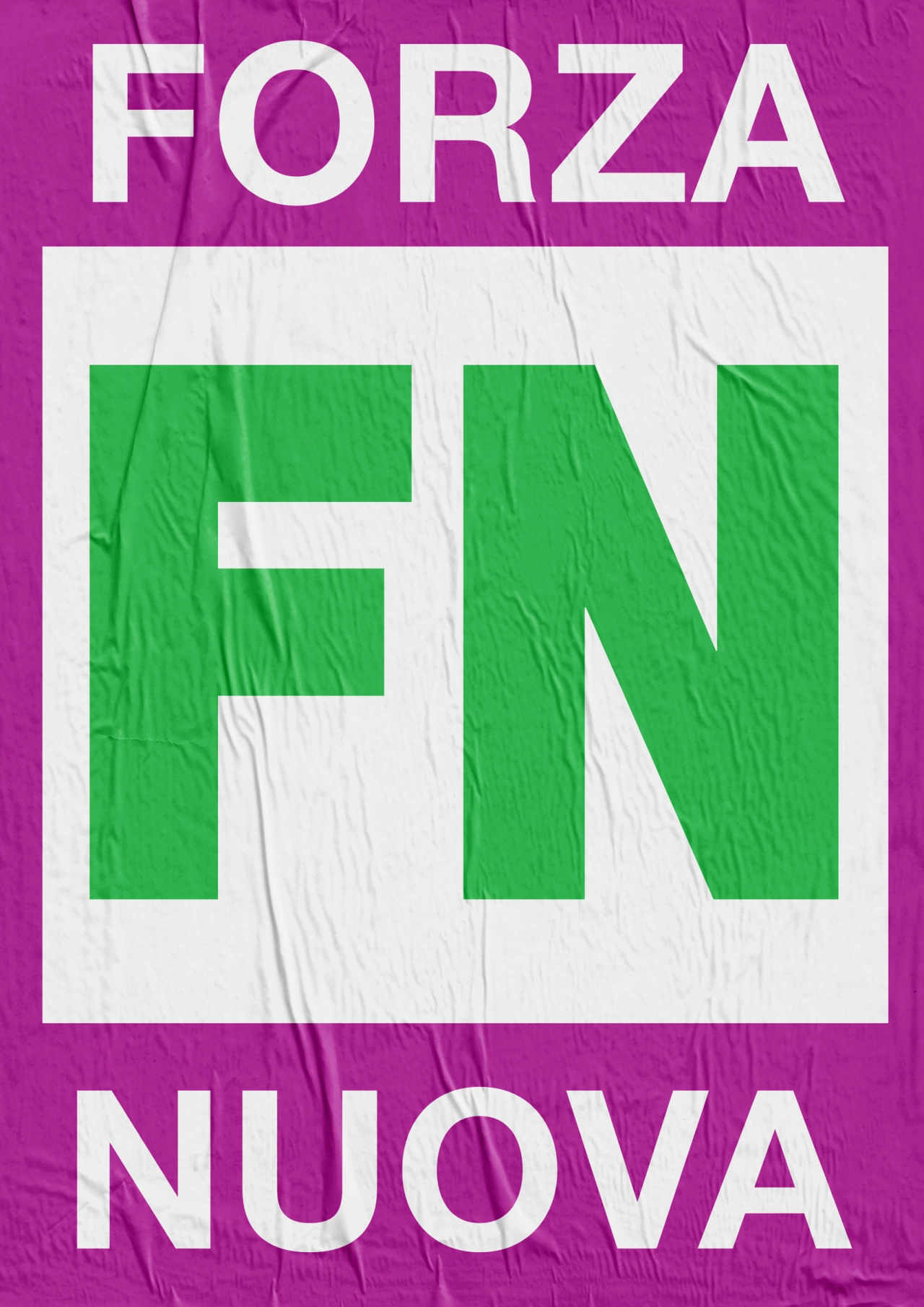
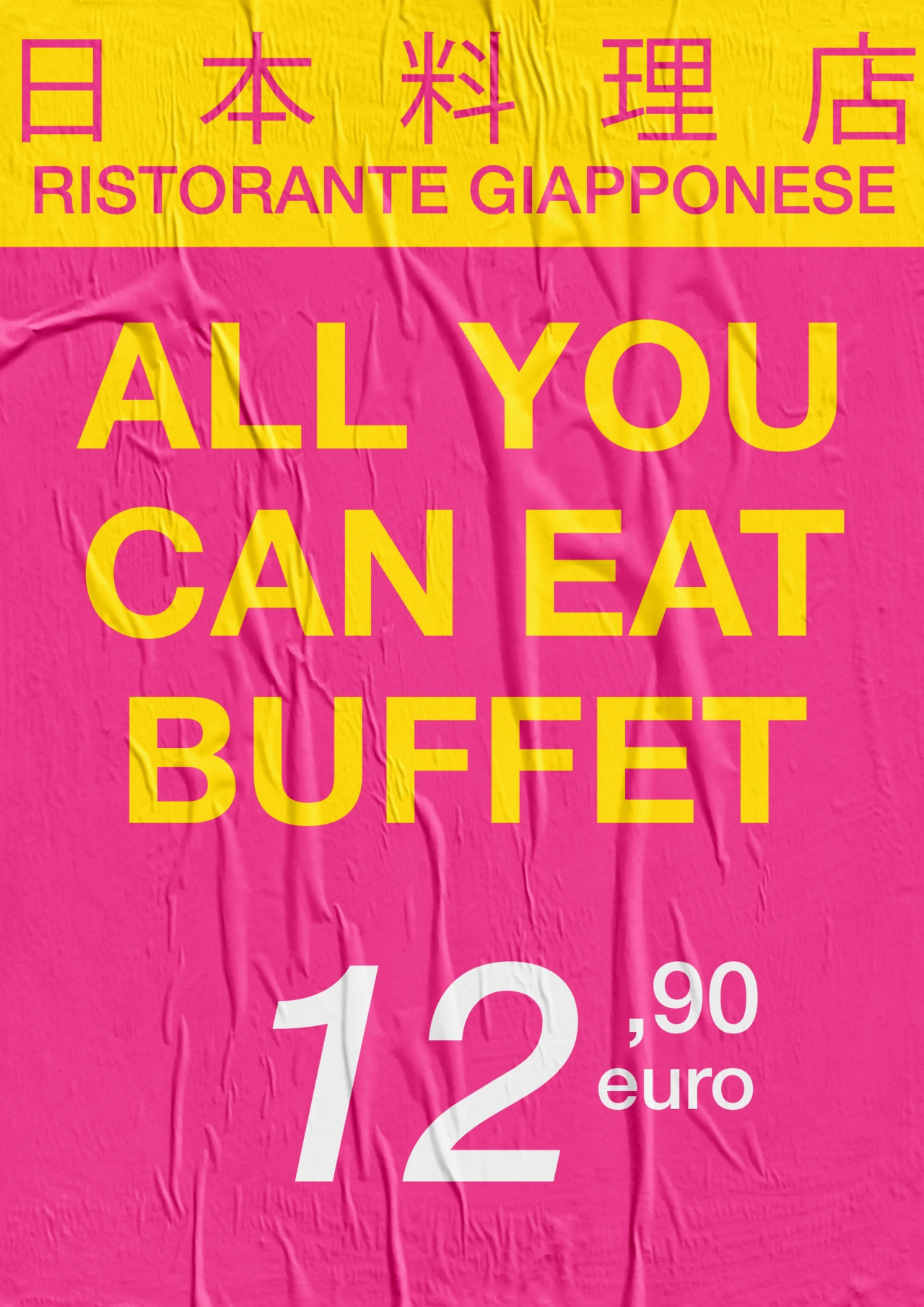
Sampled by Giacomo for the piece, one will find Chinese restaurant signs and McDonald's work ads. Somewhat provocatively, there's also the logo for Forza Nuova (FN), an Italian neo-fascist and nationalist far-right political party.
"Their original logo and banners are very recognisable by their colours (red and black) and bold typography," Giacomo explains. "Particular controversy in the recent past has sparked strongly homophobic and racist ideology and statements in Italy, so I played with their colour palette to give a green accent to the two main letters and a more 'candy' look to the surrounding area."
"I also used part of the 1990 World Cup logo to represent the one true love of Italians: football. Football is perhaps the only reason these days Italians would take to the streets to protest."
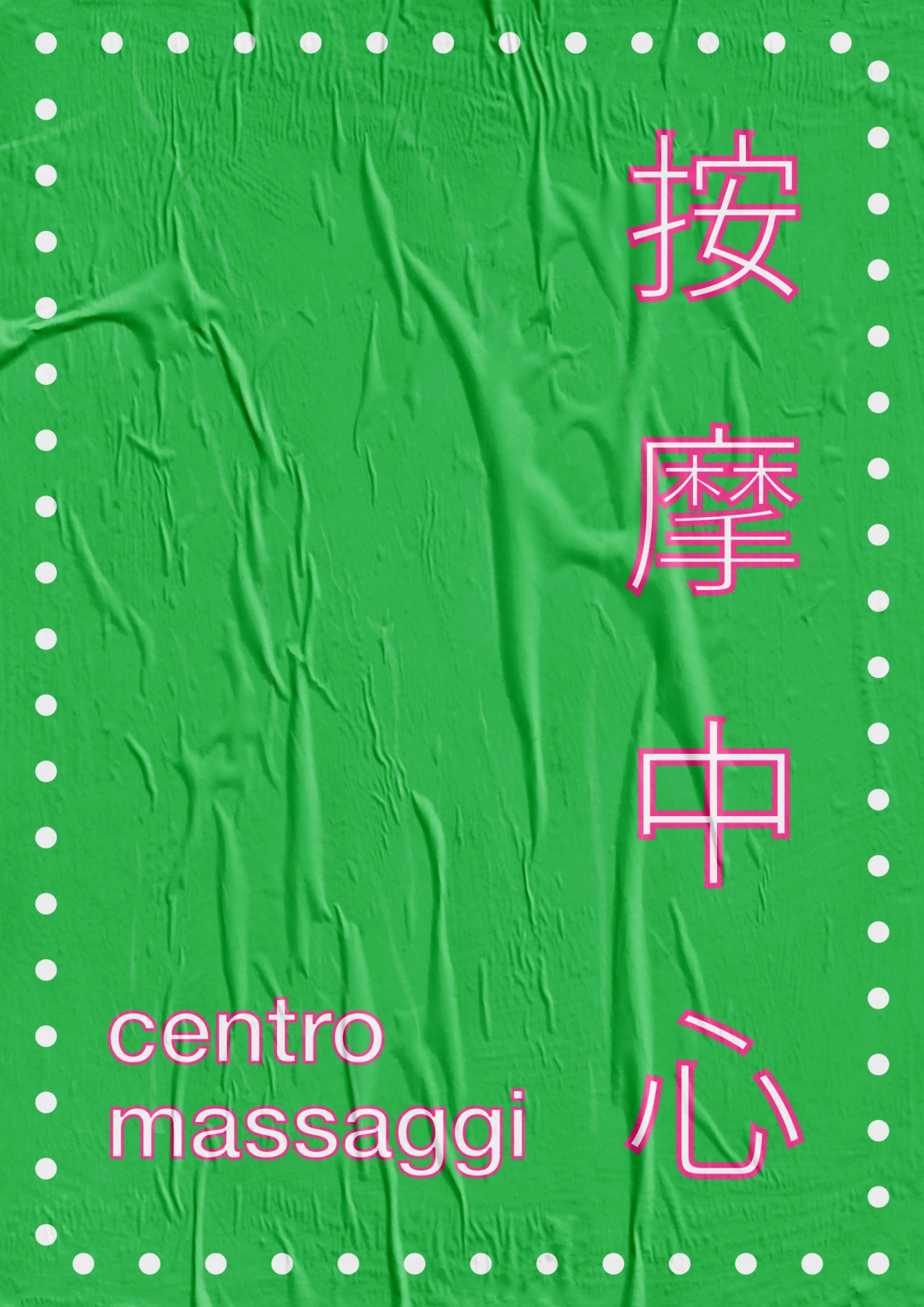
The Helvetica typeface was employed as a unifying motif to make this spaghetti of influences more homogeneous to the eye. It was also a small tribute by Giacomo to Massimo Vignelli, the Italian master of design who employed the font often.
"Massimo Vignelli is one of the most important protagonists in the history of design, and graphic design in particular," Giacomo gushes. "He's the polar star of every young designer. Through both his deep cultural commitment and his real comprehension of the design discipline, Vignelli crucially contributed to the design profession by keeping alive and also promoting the evolution of the fundamental principles of design."
Giacomo's own cultural commitment is in what L'Italia è il Paese che Amo symbolises, the "shady" area of his country, as he puts it. "For me, as an Italian, this work represents our glittering past, tax evasion, corruption, social sleepiness, the demographic collapse, low labour wages and the gap between the North and the South."
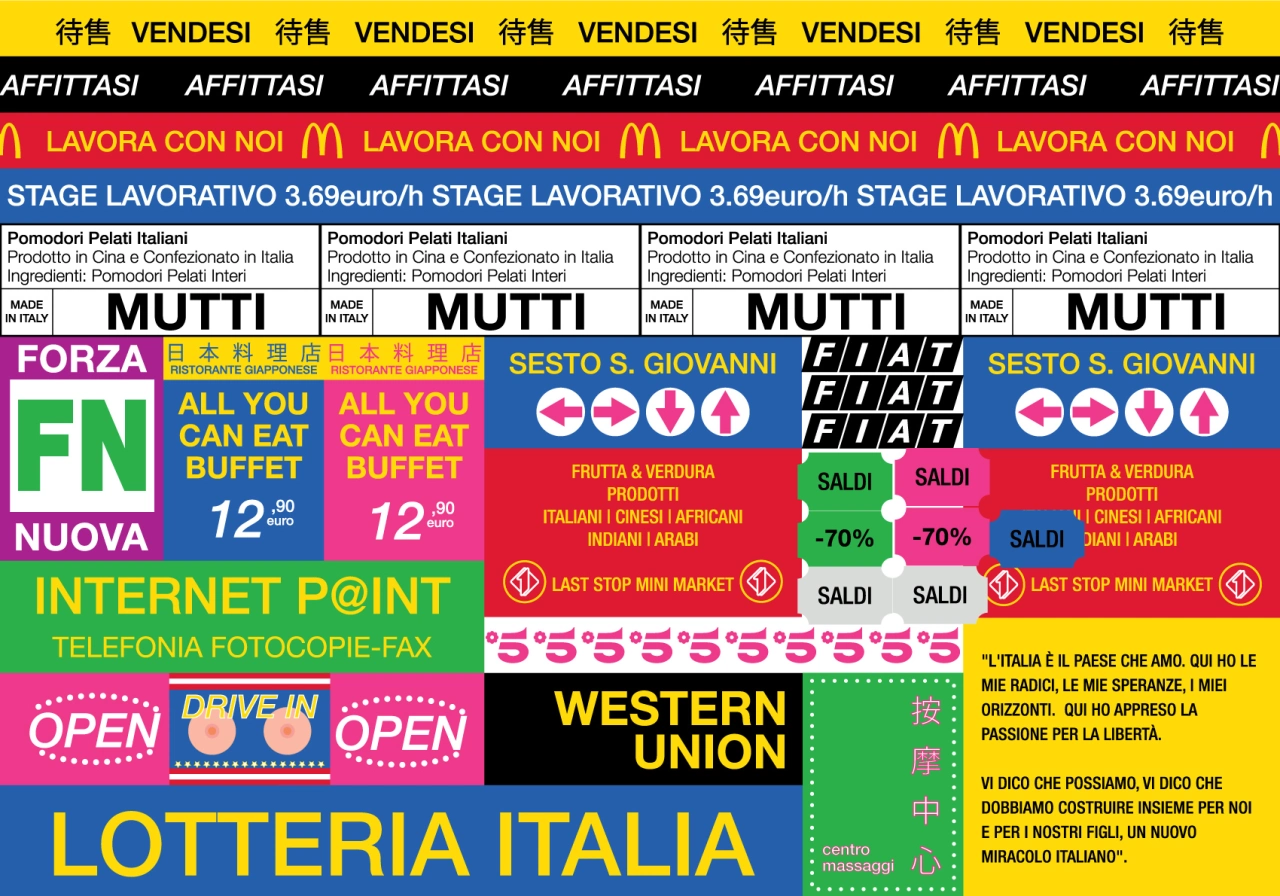
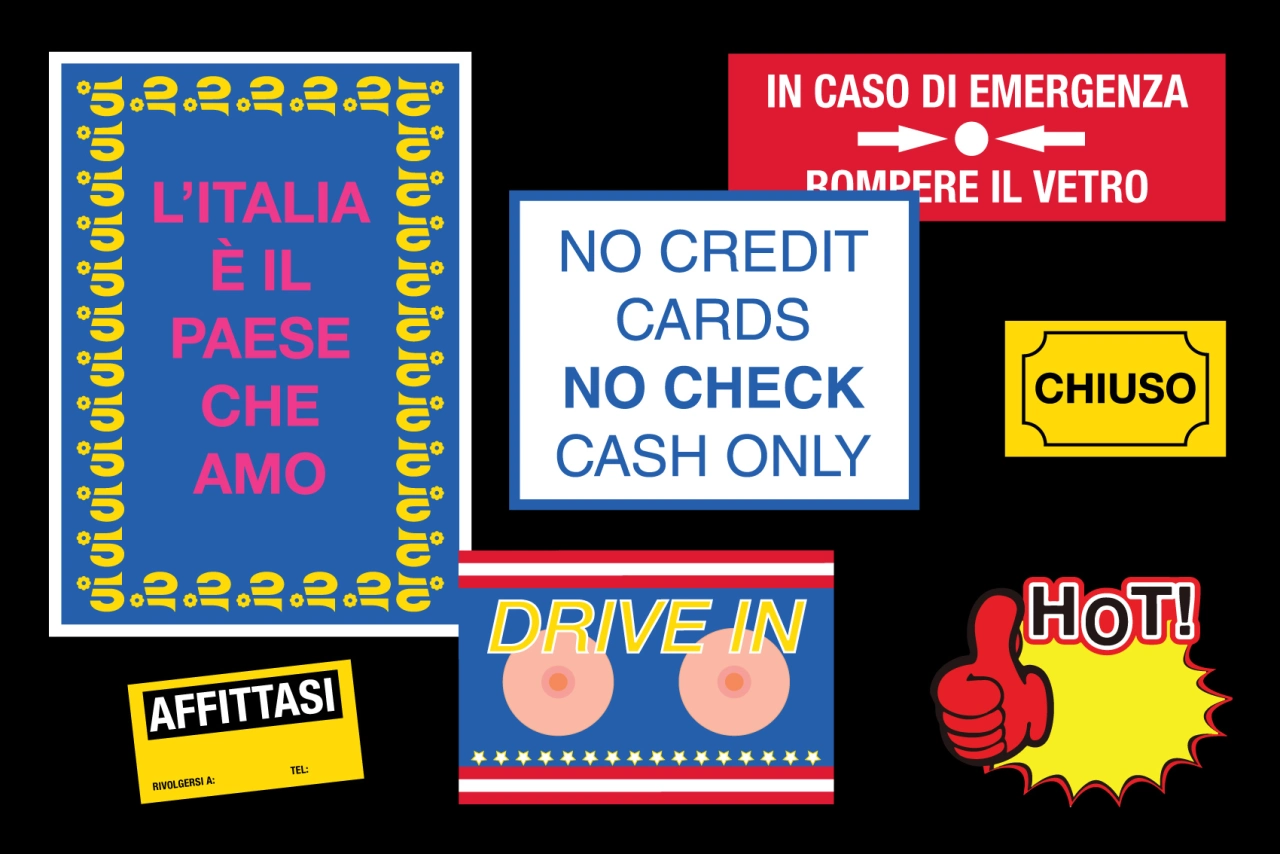
"Graphic design is not always created by good graphic designers, and the messages are often broken," Giacomo tells his fellow Giacomo. "Sometimes, this non-professional approach can create beautiful pieces of ugly design, and the mix with iconic pieces is the right contrast I was looking for."
The title of L'Italia è il Paese che Amo comes lifted from the words of Mr Bunga Bunga himself. As Giacomo explains, in 1994, Silvio Berlusconi appeared on Italian television screens announcing his entrance into the political field with the now-famous opening line, "Italy is the country I love." This moment marked a cultural and socio-economic turning point for the country that lasts to this day.
"I'm simply trying to ghostwrite Italian culture's stream of consciousness through pragmatic, amplified, stereotyped and conflicting messages," Giacomo says. "It is curious how there is an attitude of growing distrust of the foreigner who comes to Italy to seek his fortune, and at the same time, young Italians leave Italy to seek their fortune abroad. Isn't this just a circular movement?"